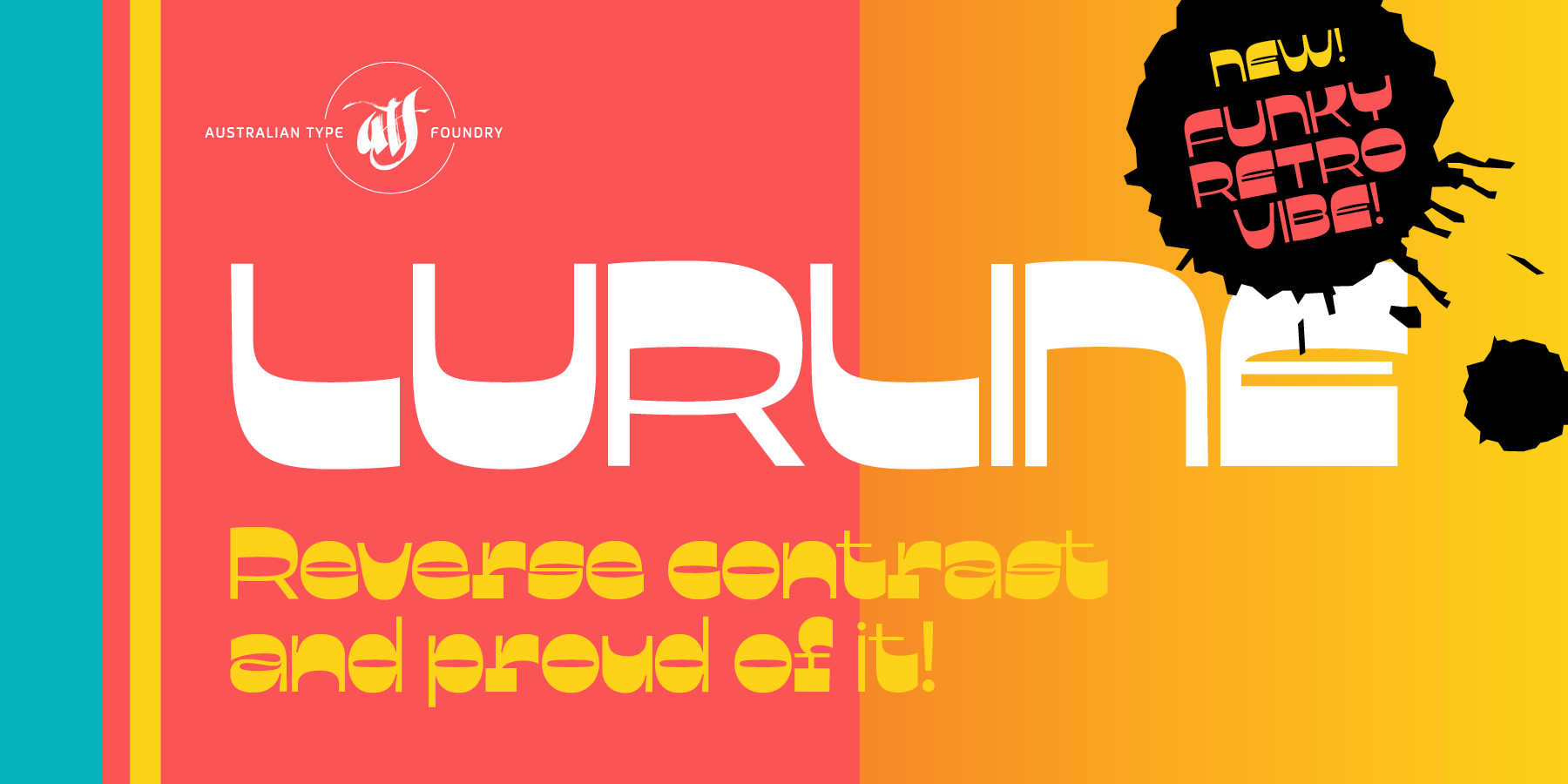
The Lurline Font is an excellent choice for designs that demand a fresh, modern, and often organic aesthetic, reminiscent of flowing lines and natural simplicity. Imagine it gracing the branding of eco-friendly products, adding a serene and inviting feel to wellness retreat promotions, or bringing a clean, artistic vibe to minimalist website designs. It's also perfectly suited for captivating editorial layouts, elegant packaging for artisanal goods, and any project where you want to convey a sense of calm, fluidity, and natural beauty. With its graceful curves and often subtle variations, the Lurline Font is ideal for projects that aim for visual harmony and a memorable, understated impression.
What makes the Lurline Font truly exciting is its remarkable ability to blend contemporary design principles with an organic, almost hand-drawn warmth. It’s designed to provide excellent readability while offering a unique character that feels both refined and approachable. This font often features soft edges or gentle transitions that mimic natural forms, setting it apart from more rigid typefaces. It's perfect for establishing a brand identity that feels harmonious, authentic, and creatively inspired, ensuring your message is not just seen, but felt on a deeper, more evocative level. The Lurline Font Free Download offers a fantastic opportunity to infuse your projects with this distinctive charm.
The Lurline Font family is typically designed to offer versatility while maintaining its signature flowing and organic style. While specific family members can vary, you can often expect to find:
Lurline Regular
Lurline Bold (for added emphasis on titles or key phrases)
Lurline Light (for a more delicate and airy feel)
Lurline Italic (or Slanted, for a dynamic, forward-moving appearance)
Lurline Script (if it includes a complementary, more fluid handwritten style for versatile pairing)
These variations provide flexibility for different design applications, allowing you to create engaging visual hierarchies and maintain a consistent, charming aesthetic across all your projects.